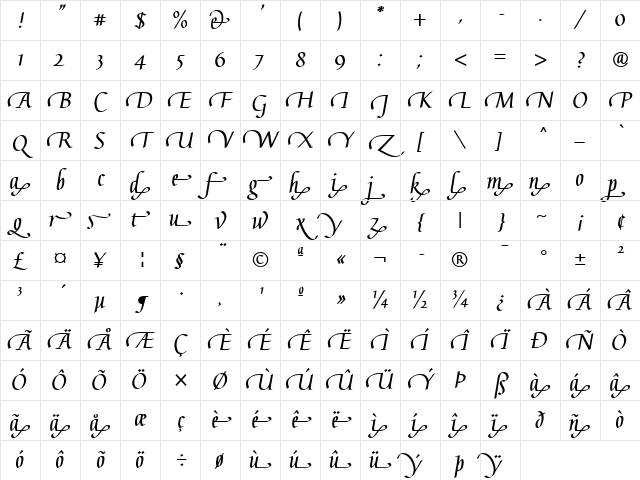
Complete Gaius LT BoldSwashEnd Regular glyph index. Displaying only characters natively supported by Gaius LT BoldSwashEnd Regular font.
Gaius LT BoldSwashEnd flows with the natural rhythm of handwritten lettering, making it ideal for designs that call for warmth and personal expression. Its bold stroke weight gives it real presence on the page.
Font Pairing: Combine Gaius LT BoldSwashEnd with a simple geometric sans for maximum contrast - the tension between flowing curves and clean structure is a classic typographic pairing.
Pro Tip: Use Gaius LT BoldSwashEnd for short runs of text - names, titles, or taglines. Extended body copy in script faces tires the eye quickly.